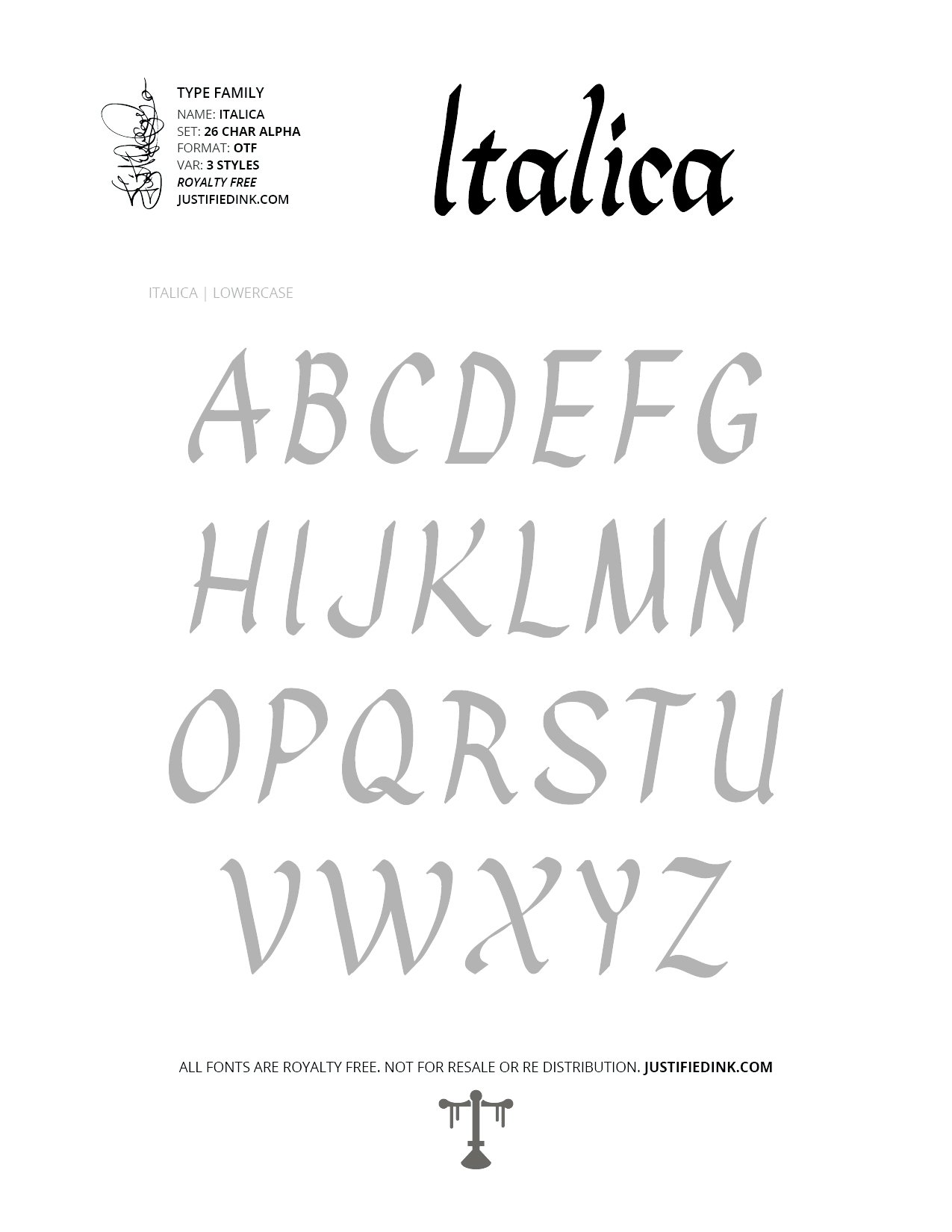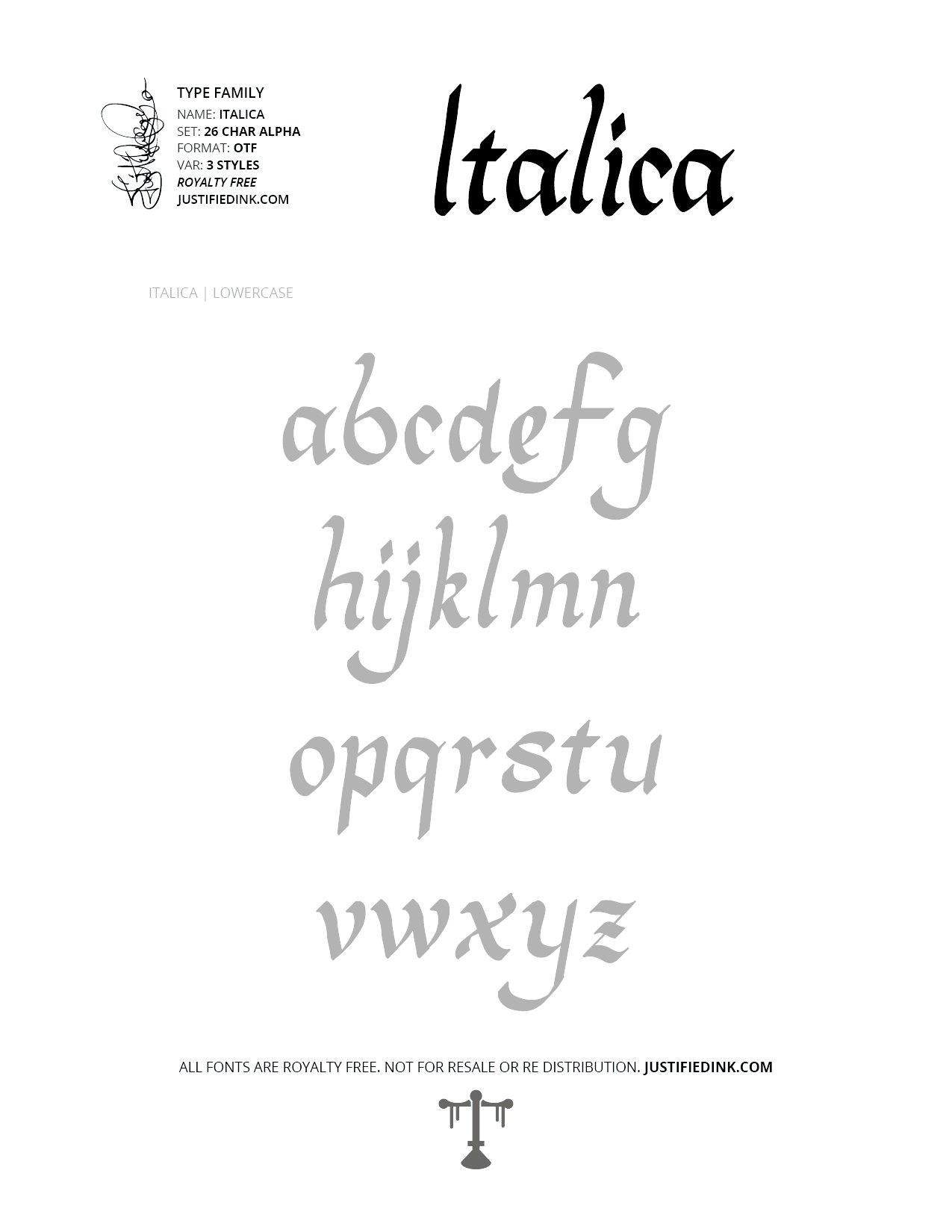
Italica (3 styles) - Custom Font by Justified Ink
You dont have to be bold to be heavy metal. Italica - an Italic script, is also known as chancery cursive and Italic hand. Known for its semi-cursive, slightly sloped style of handwriting and calligraphy that was developed during the Renaissance in Italy.
Carve out your own niche like The Italian scholar Niccolò de' Niccoli who was dissatisfied with the lowercase forms of Humanist minuscule, finding it too slow to write. In response, he created the Italic script, which incorporates features and techniques characteristic of a quickly written hand: oblique forms, fewer strokes per character, and the joining of letters.
You dont have to worry about speed of writing, in the age of the computer but it is nonetheless a pivotal innovation in an otherwise innocuous place.
This font is part of the collection by Justified Ink, called Blackletter III. After 15+ years creating, I began to focus on building personal libraries of my work. Blackletter III is yet another amazing collection of 30 handmade fonts. Building off of the work done to create Blackletter II, this collection is specialized where it was created digitally. This features many classic styles such as gothic, fraktur, beneventan, and uncial. Additionally, this collection contains several other styles drawn from graffiti, hiphop, and indie type styles. It comes in a full set of 26 char alpha. Each font family has variations in styles and/or non-alpha chars.